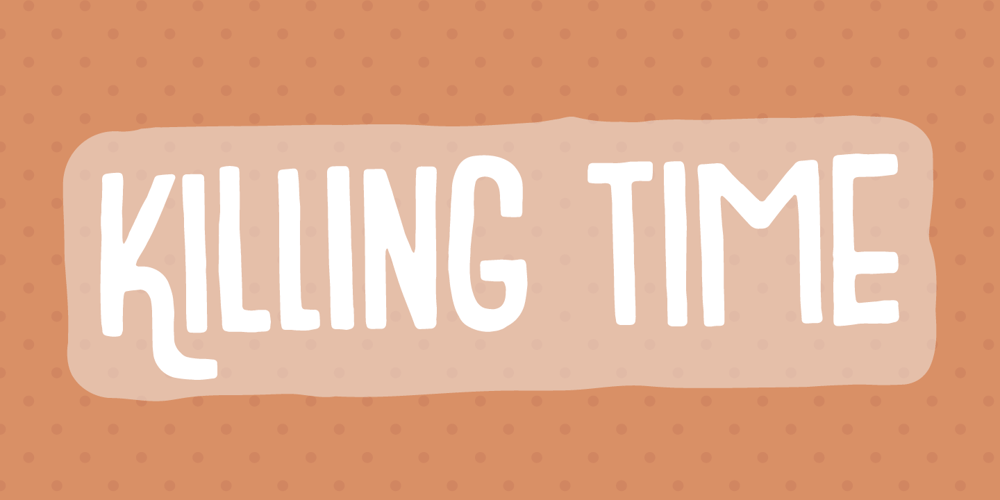
Killing Time Font Family was designed by Jakob Fischer and published by PizzaDude.dk. Killing Time contains 1 styles and family package options. Killing Time can be quite good – if the time killed is being used on something useful … could be if your are taking your fantasy and imagination for a walk, and let your creativity sprout. Use the soft lines and corners of Killing Time font for your comics, toys, candy, posters, postcards, invitations … well, the list goes on – but if you need something fresh and comic, and not overdoing it, Killing Time could be your choice!